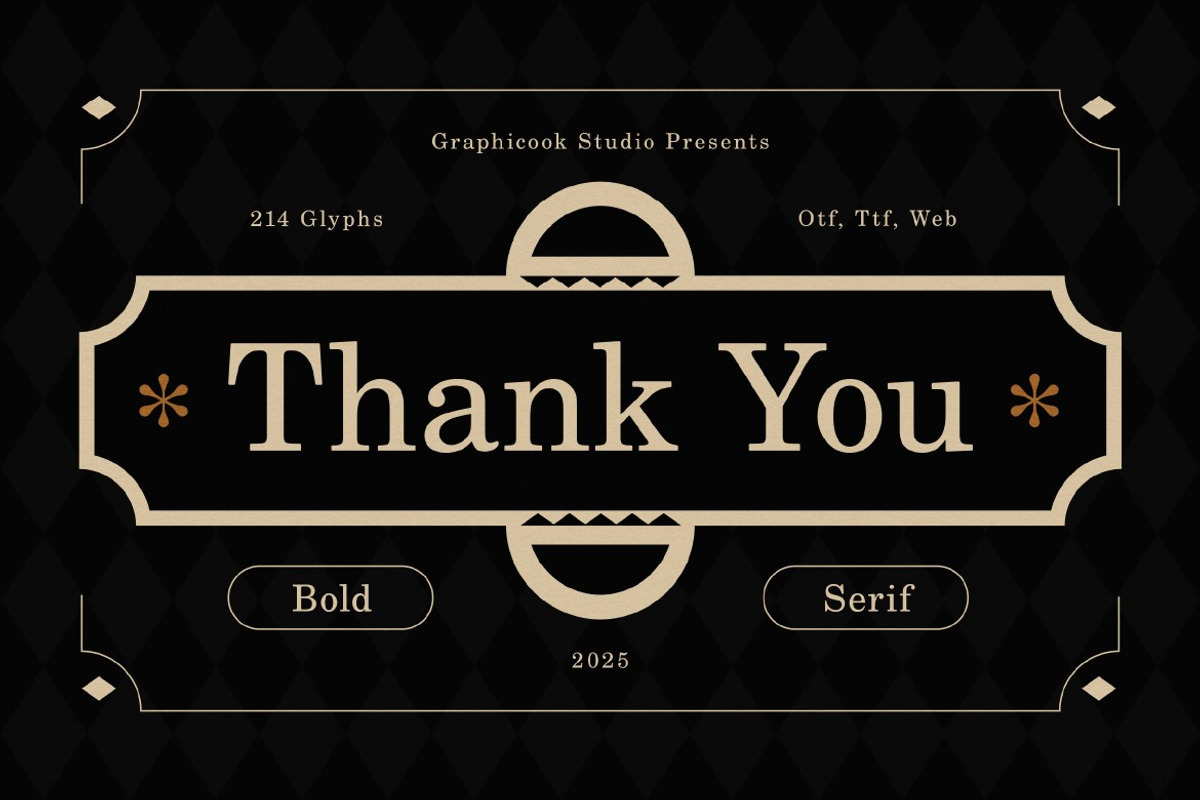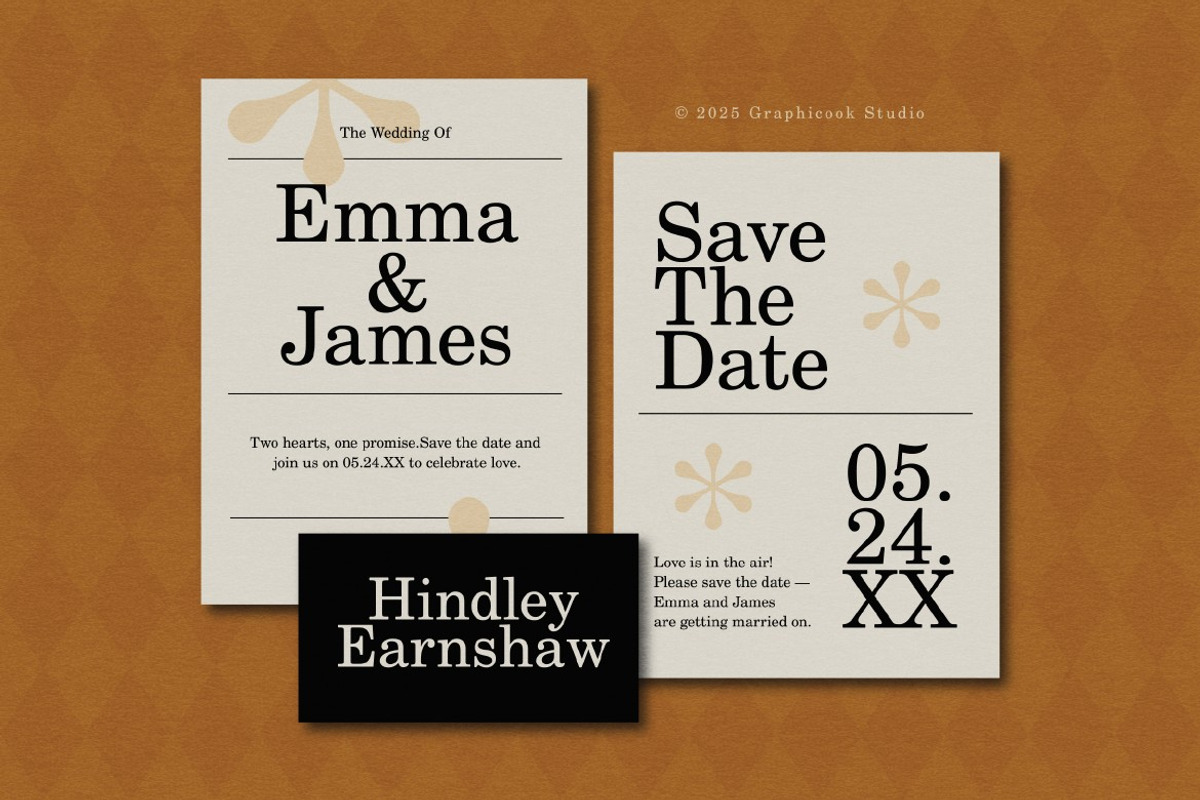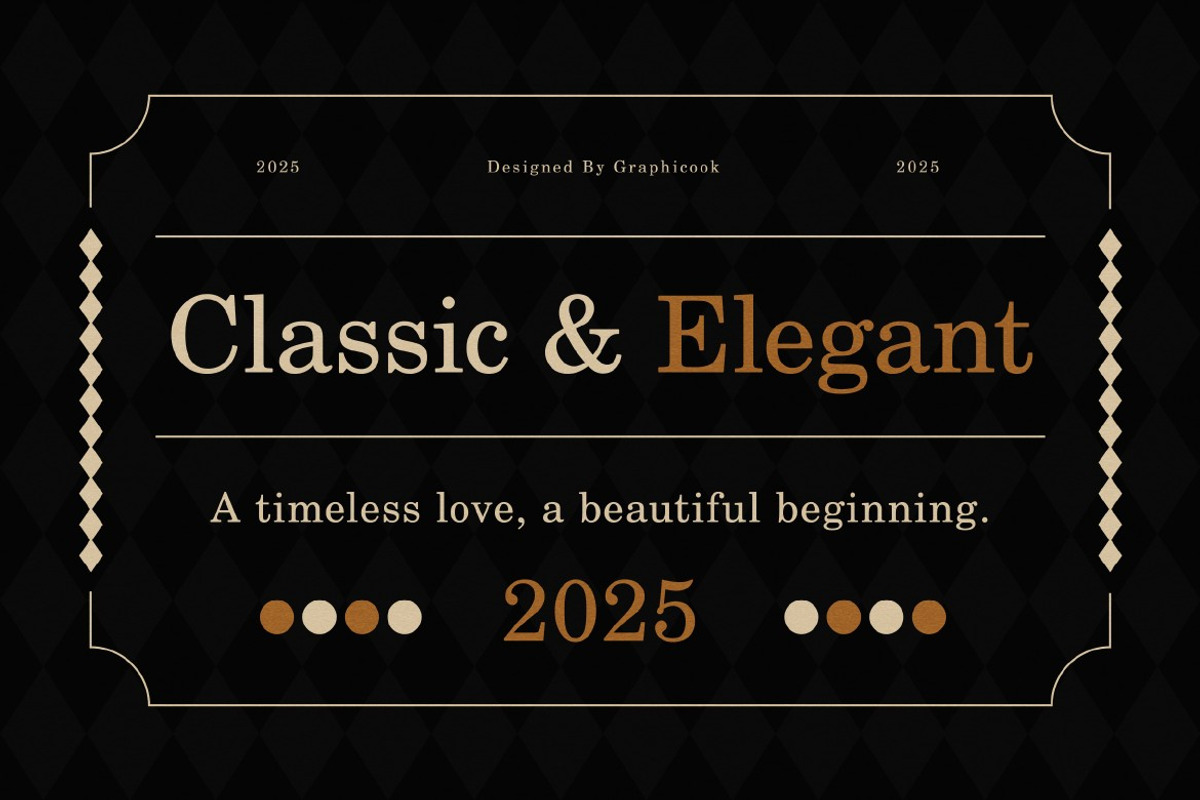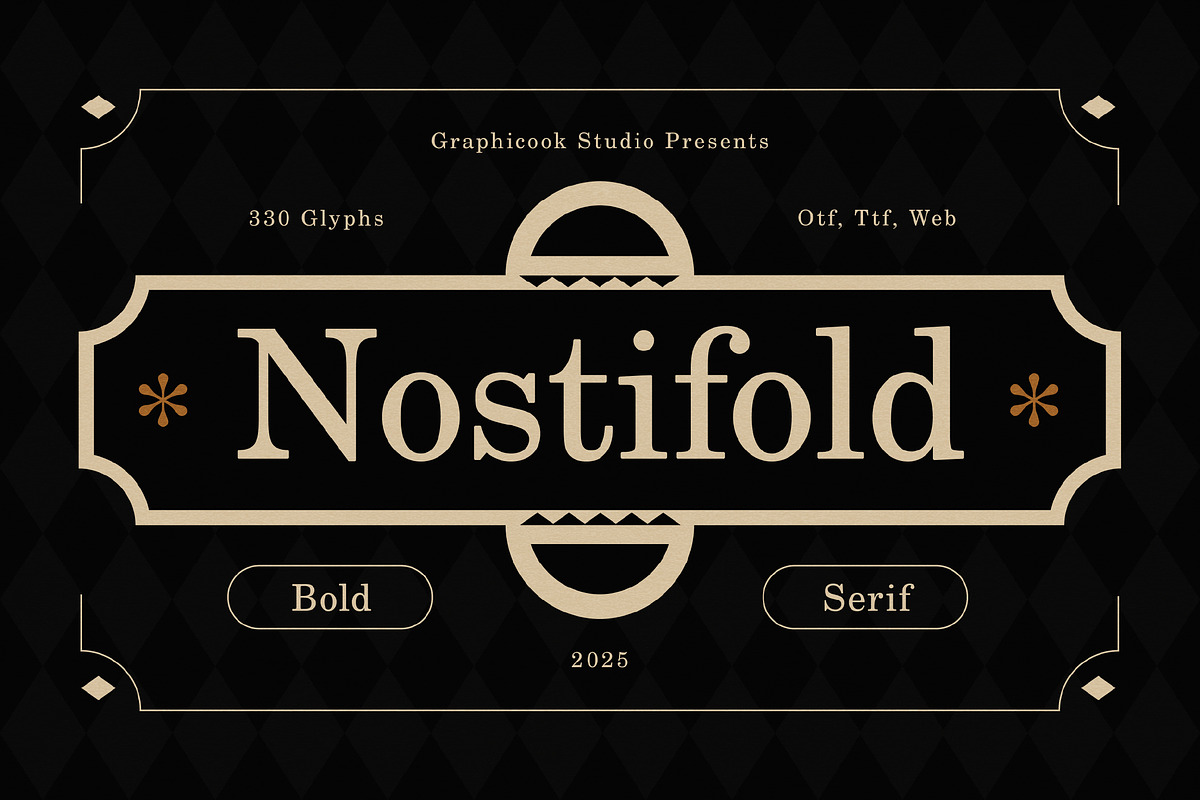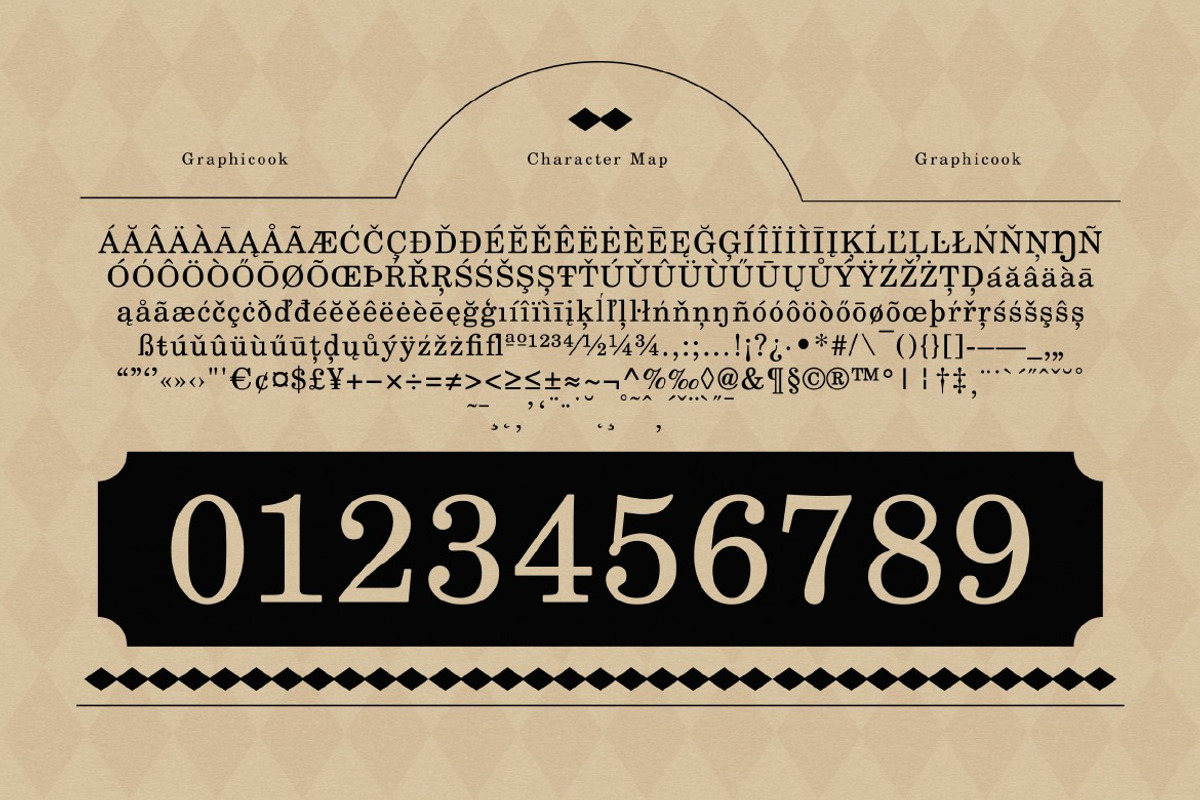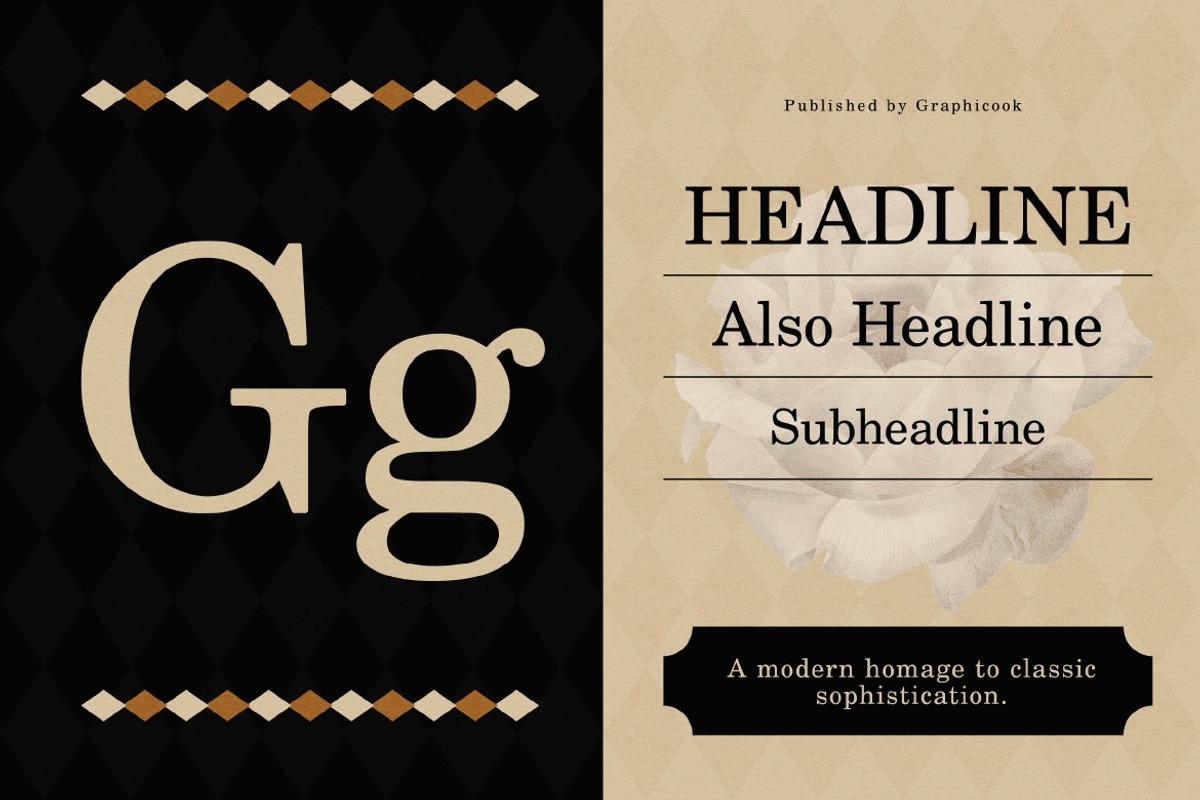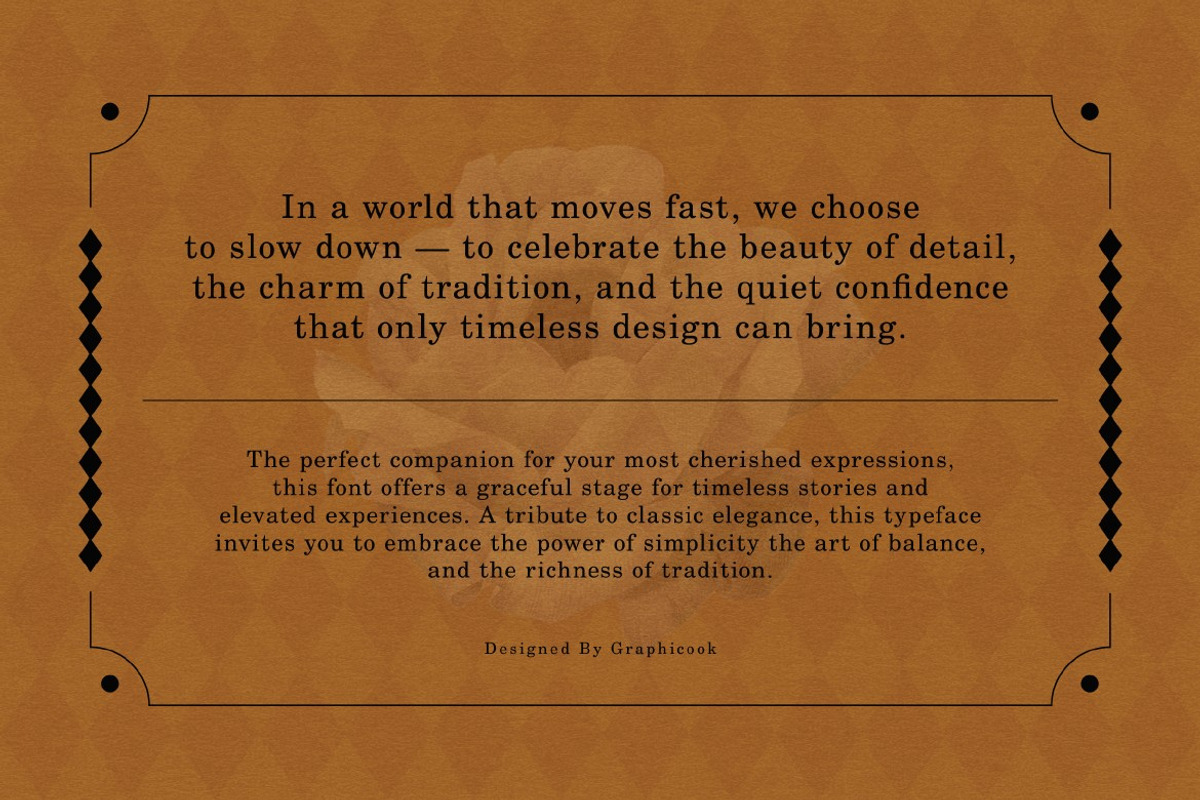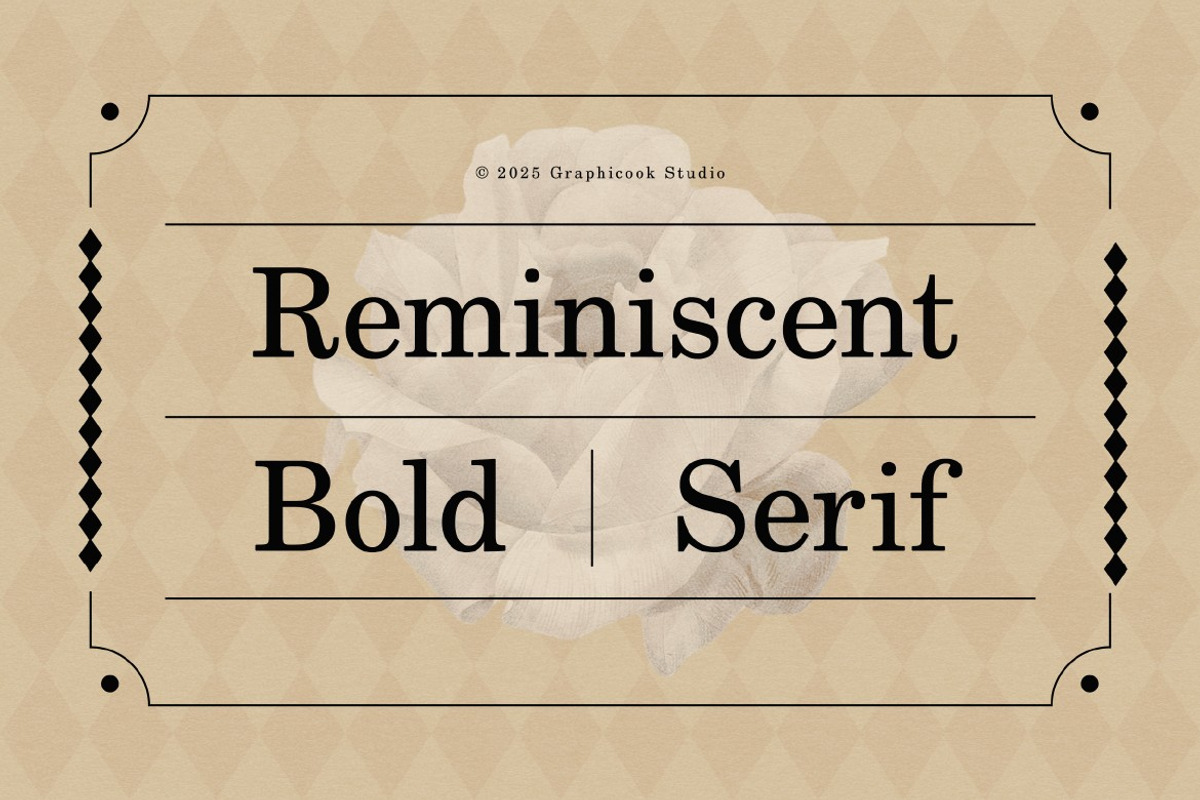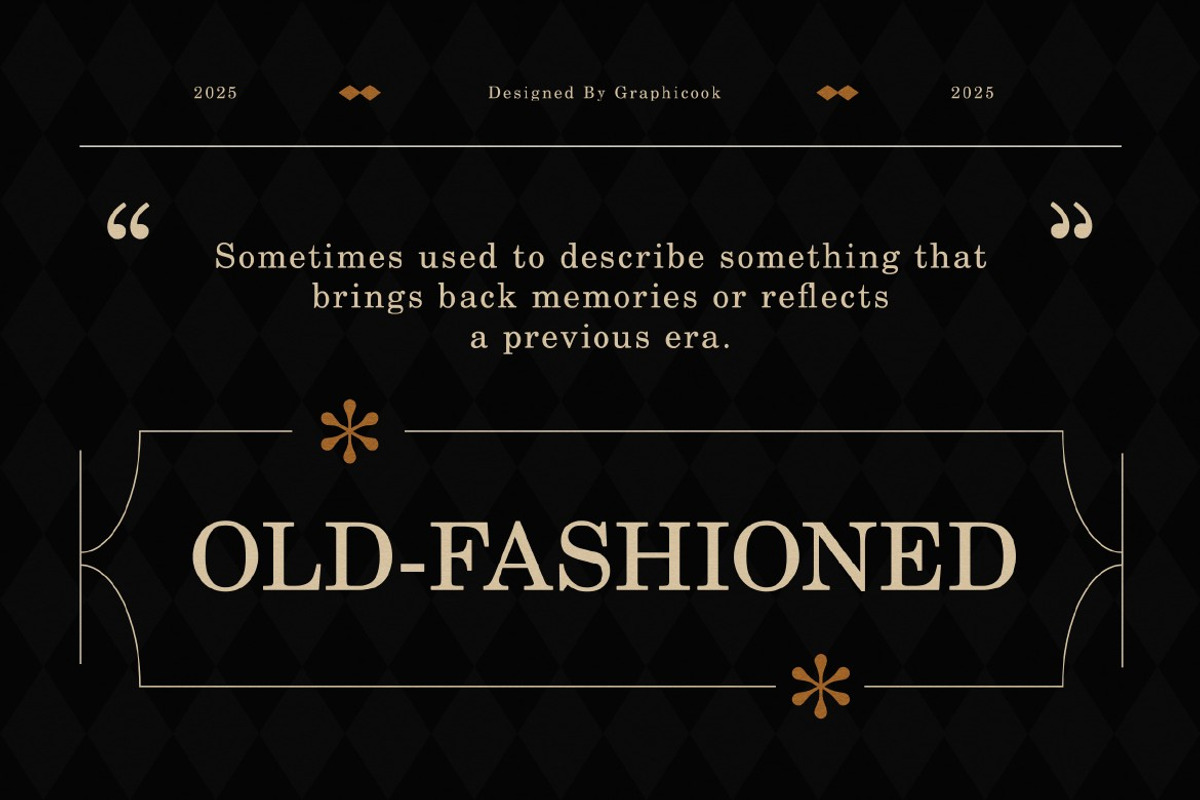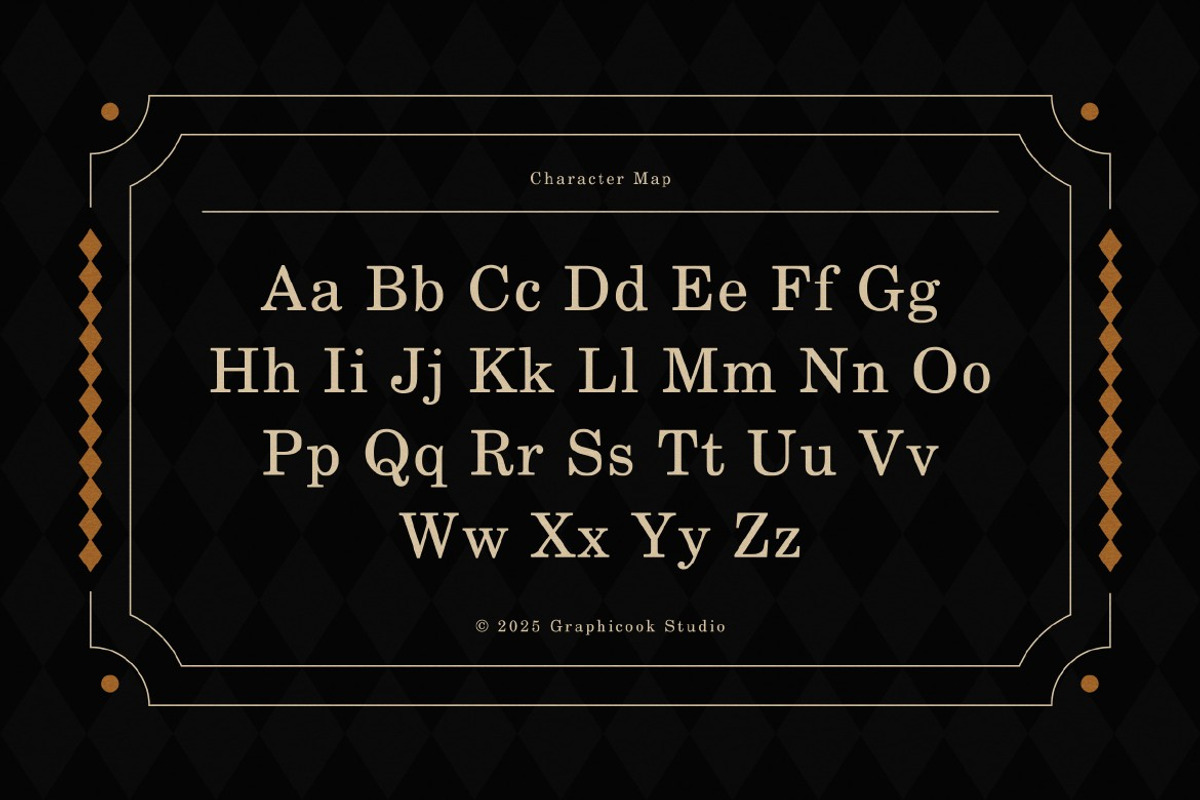
Nostifold
Nostifold is a bold serif font with a nostalgic charm and a strong, classic appearance. Its timeless elegance makes it ideal for formal, professional, and refined design projects.
It is perfect for headlines, logotypes, magazines, packaging, quotes, movies, games, cover albums, book covers, and flyers, it's a perfect solution for creating eye-catching designs that stand out in any context.